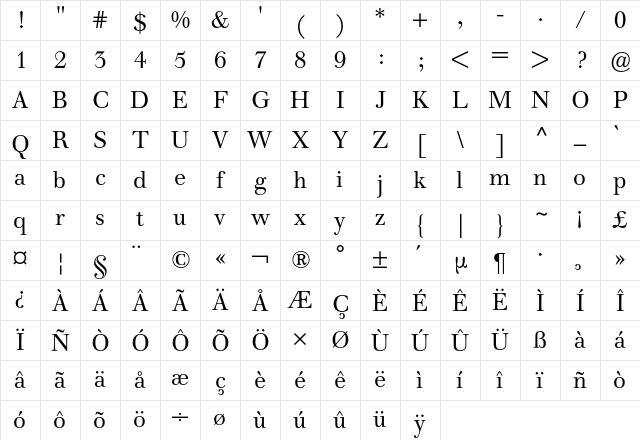
Walbaum Standard BQ Regular
Design Context for Walbaum Standard BQ
Walbaum Standard BQ is a composed and adaptable typeface that performs quietly and consistently across a wide range of design contexts.
Pro Tip: Use Walbaum Standard BQ in both headline and body roles to test its range before committing to a single application.